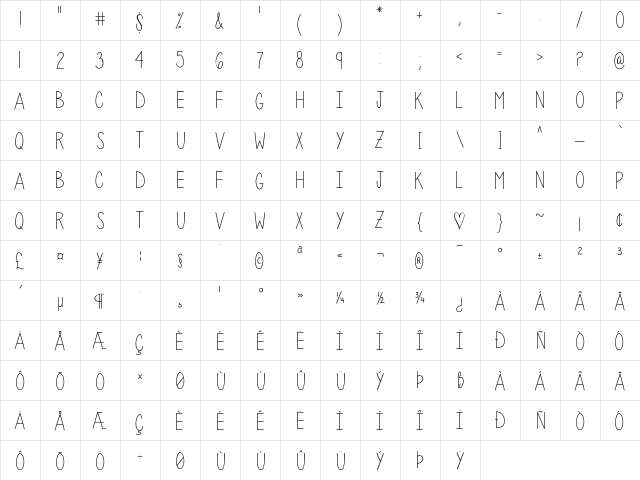
PenelopeAnne Medium
Design Context for PenelopeAnne Typeface
PenelopeAnne takes a measured approach to typography — its balanced proportions and neutral character make it a reliable workhorse for both digital and print work.
Pro Tip: Use PenelopeAnne in both headline and body roles to test its range before committing to a single application.